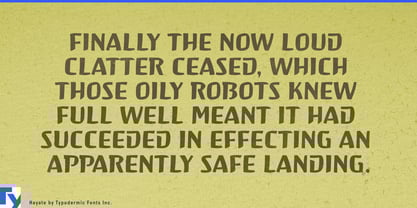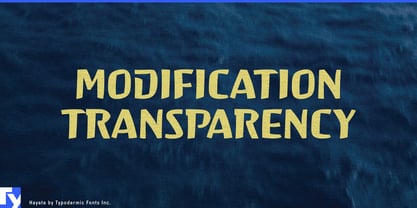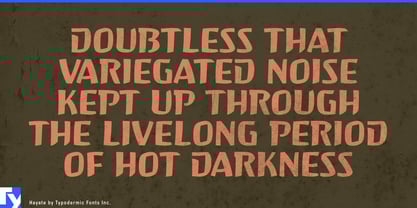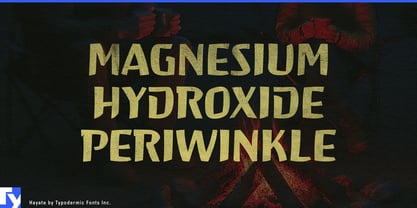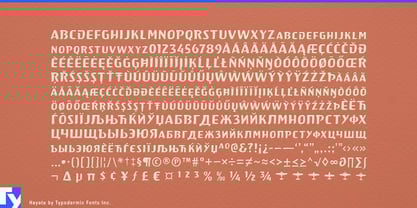
About Hayate Font Family
Introducing Hayate, a resilient small-cap typeface that draws inspiration from the strength and texture of sliced bamboo. This typeface features a rugged design that is perfect for creating a bold and impactful message.
With its Japanese influence and subtle nod to the American pseudo-Asian restaurant aesthetic of the twentieth century, Hayate evokes a sense of nostalgia and intrigue. However, it’s important to note that this font should be used with care. In certain contexts, it could be seen as culturally insensitive and contribute to casual racism.
Before using Hayate, take a moment to consider the message you are trying to convey and ensure that it aligns with your values and beliefs. By using this font thoughtfully, you can create impactful designs while also being mindful of cultural stereotypes. Choose Hayate for a typeface that’s as strong and sturdy as the message you want to convey.
Designers: Ray Larabie
Publisher: Typodermic
Foundry: Typodermic